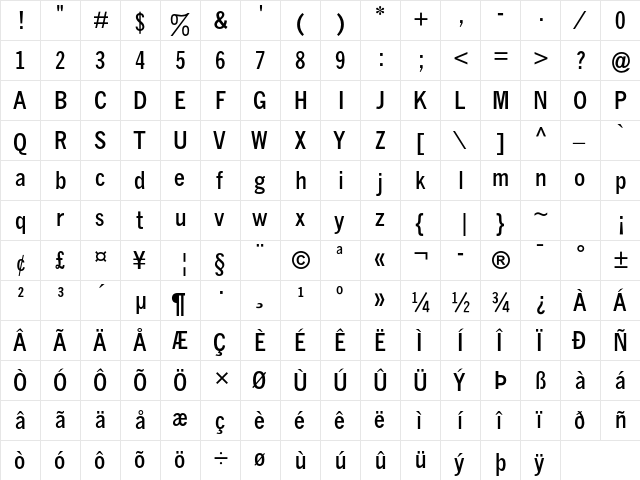
News Gothic MT Std Bold Cond
Design Context for News Gothic MT Std Typeface
News Gothic MT Std takes a clean, functional approach — its unadorned letterforms prioritise legibility and work reliably across screen and print environments. Its bold stroke weight gives it real presence on the page. Its narrow stance lets it pack a punch even in space-constrained designs.
A strong choice for UI design, app interfaces, bold signage, and corporate brand systems.
Font Pairing: Use News Gothic MT Std for headlines alongside a lighter-weight sans or serif for body copy to establish clear visual hierarchy.
Pro Tip: Try News Gothic MT Std in all-caps with moderate tracking for navigation and label copy — it performs well in systematic UI contexts.